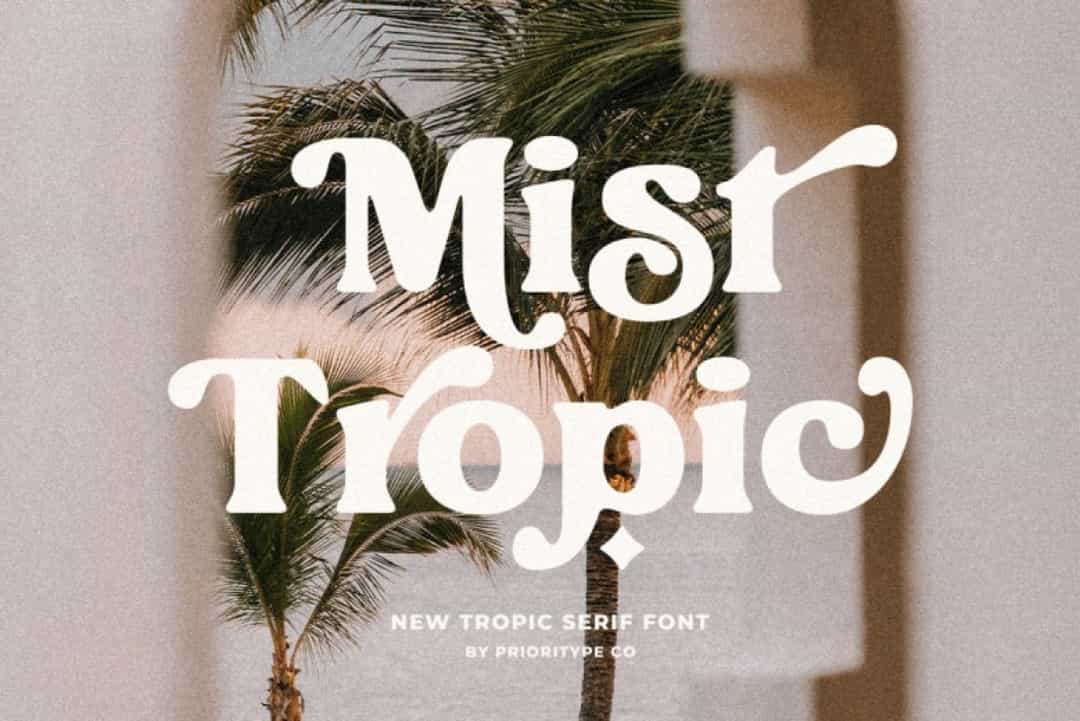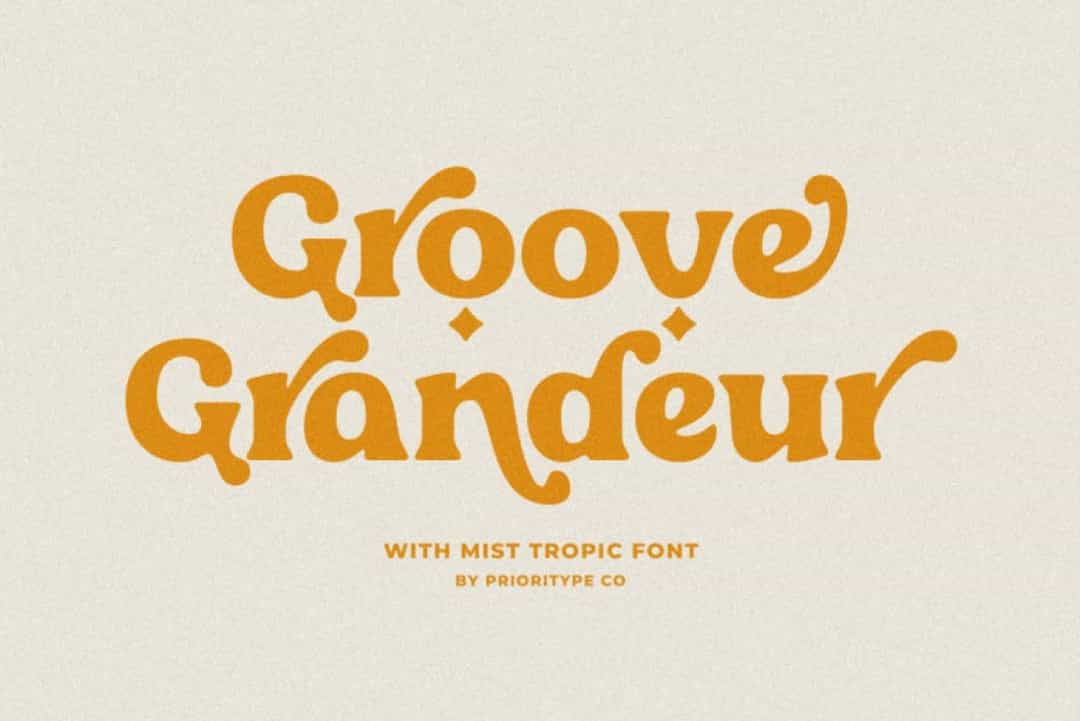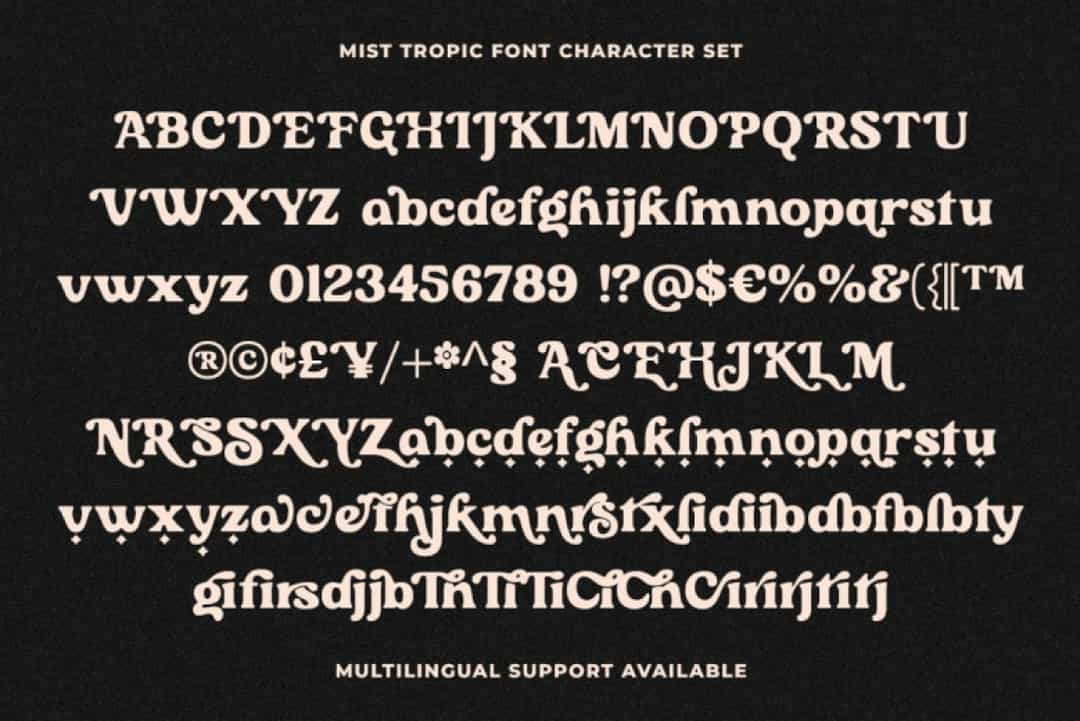
“Mist Tropic” blends retro charms with tropical appeal to create an irresistibly vintage font perfect for branding products, logos, and merchandise with timeless, vintage style. Take a peek and watch how “Mist Tropic” changes your designs with Uppercase Letters; Lowercase Letters; Numeric Punctuation Multilingual Punctuation Ligatures Alternates